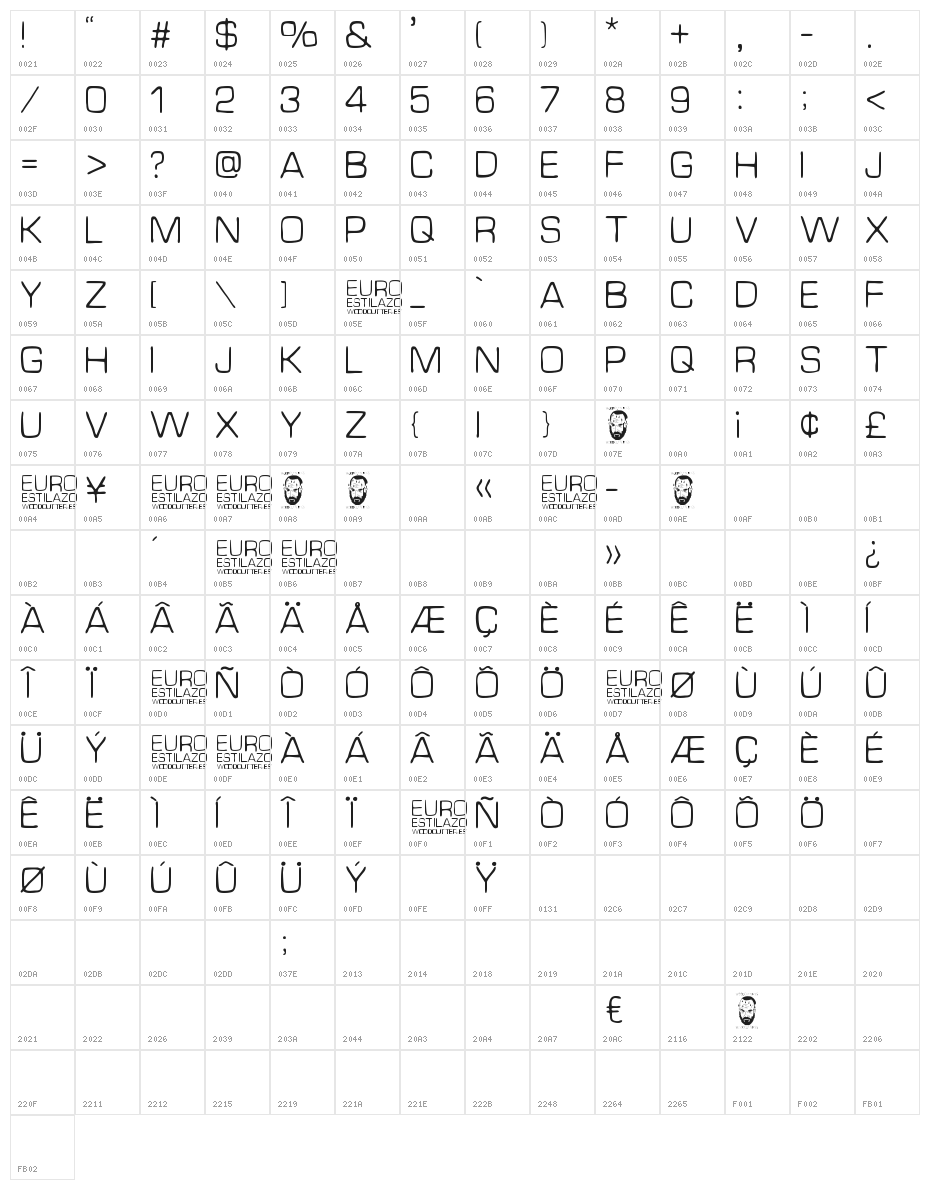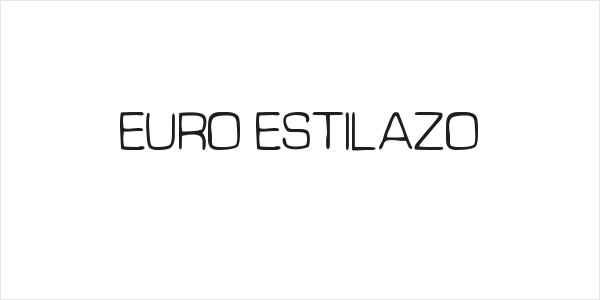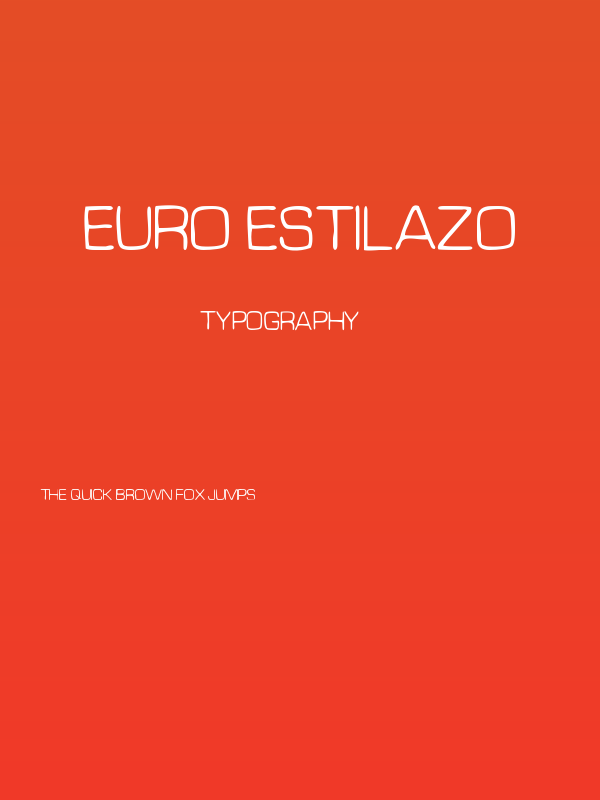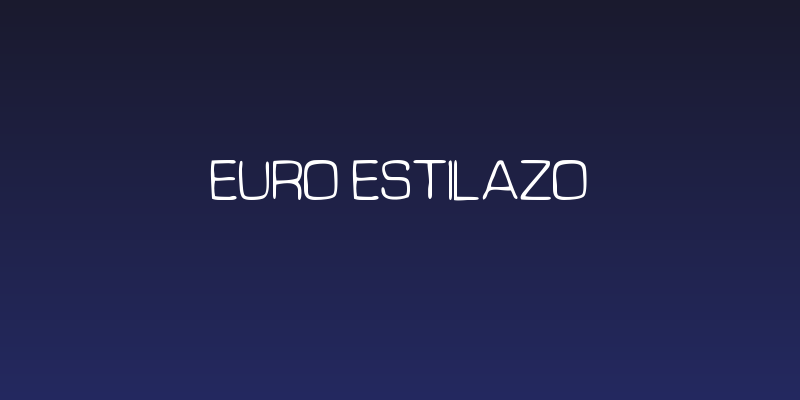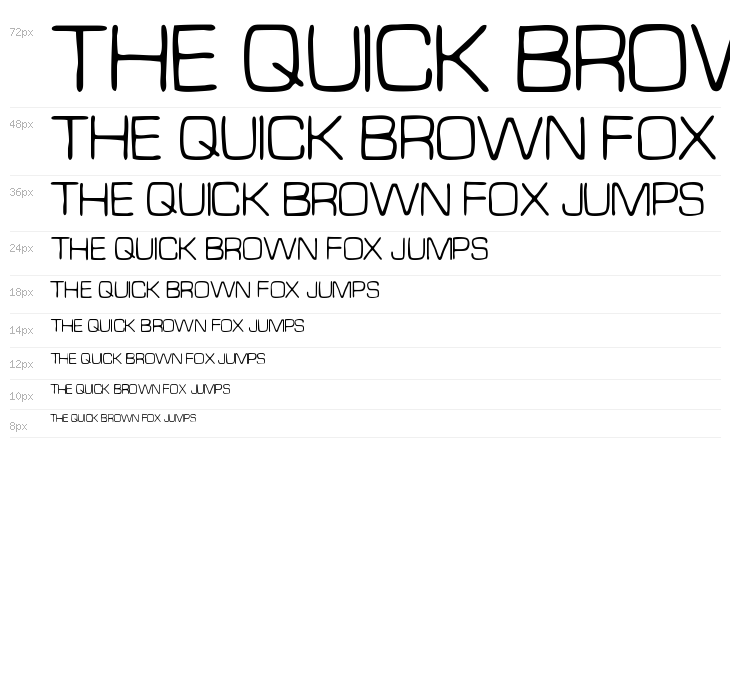
Euro Estilazo Font
Euro Estilazo Description
This font features a modern and sleek design with a touch of retro flair. The characters are slightly rounded, giving them a soft and approachable appearance. The uppercase and lowercase letters maintain a consistent style, with a uniform stroke width that adds to the clean aesthetic. The numerals are distinct and easy to read, while the special characters blend seamlessly with the overall design. This font's unique style makes it stand out, yet it remains highly legible, making it suitable for a variety of applications.
| Use Case | Headlines, Logos, Digital media |
| Proposed Projects | Ideal for branding, advertising, packaging, and digital media projects that require a modern yet approachable look. |